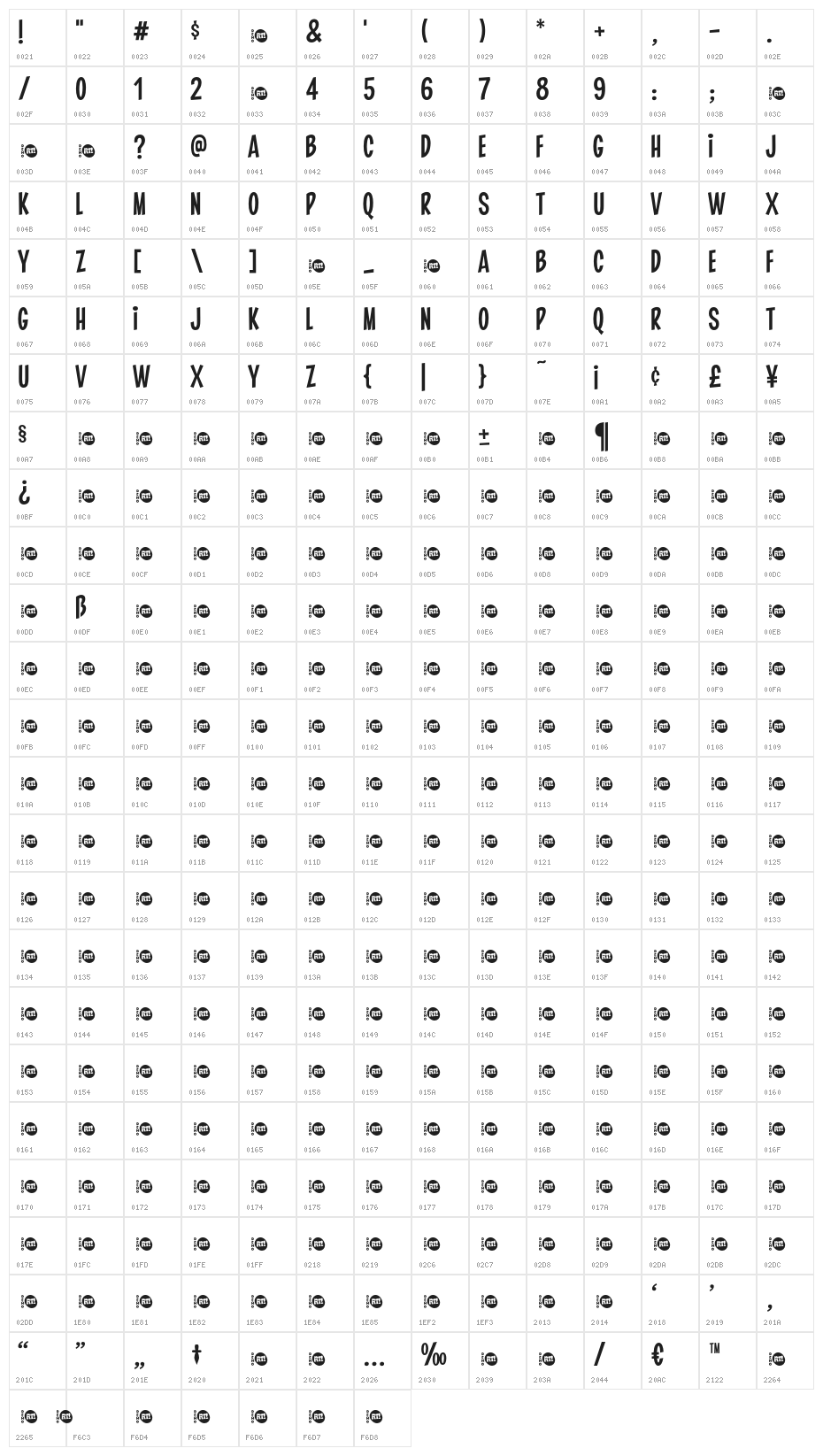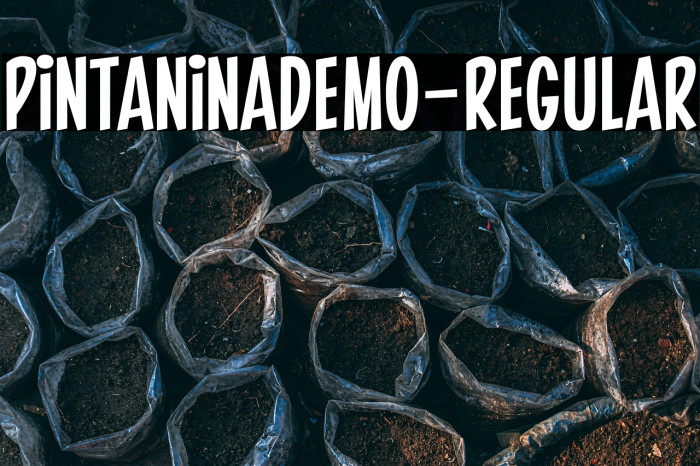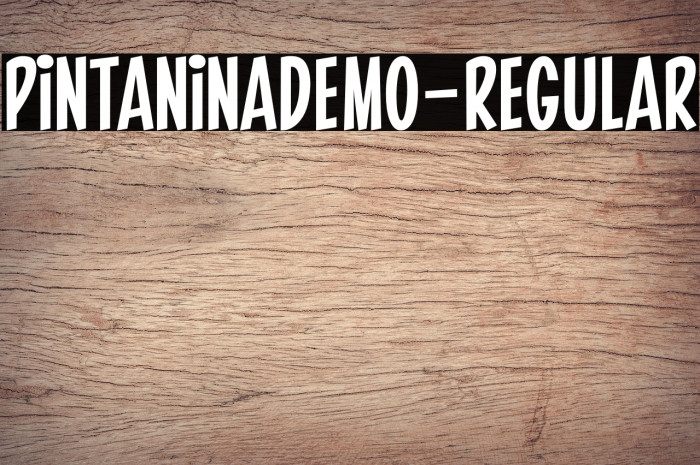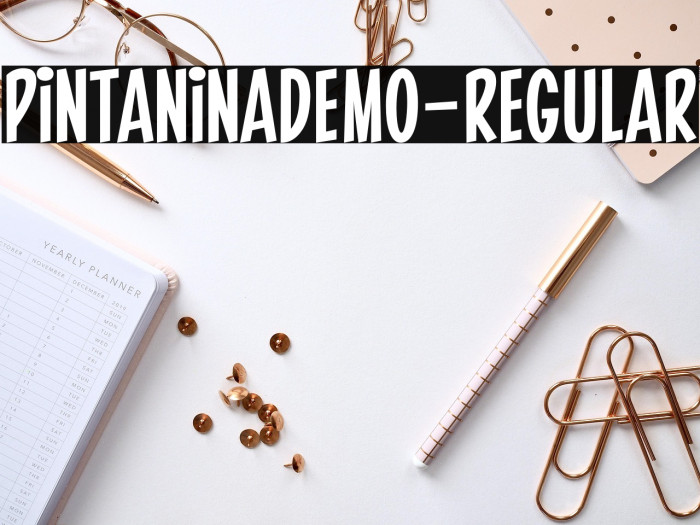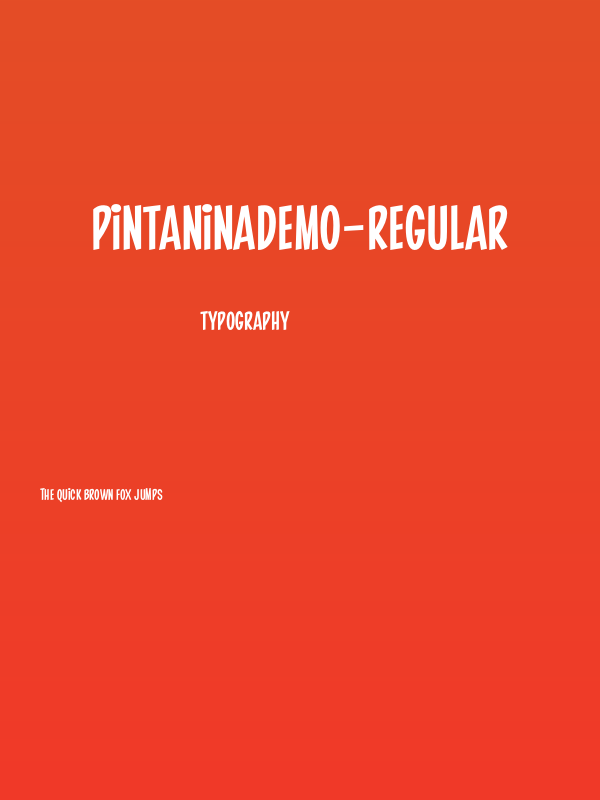
PintaninaDemo-Regular Font
PintaninaDemo-Regular Description
This font features bold, dynamic characters with a playful and energetic style. The uppercase letters are slightly condensed with a noticeable slant, giving them a sense of movement and vitality. The lowercase letters maintain a consistent style, complementing the uppercase with their rounded forms and slight tilt. The numerals are bold and clear, ensuring readability, while the special characters are designed to match the overall aesthetic, adding a quirky touch. This font's unique style makes it stand out, perfect for projects that require a lively and engaging typeface.